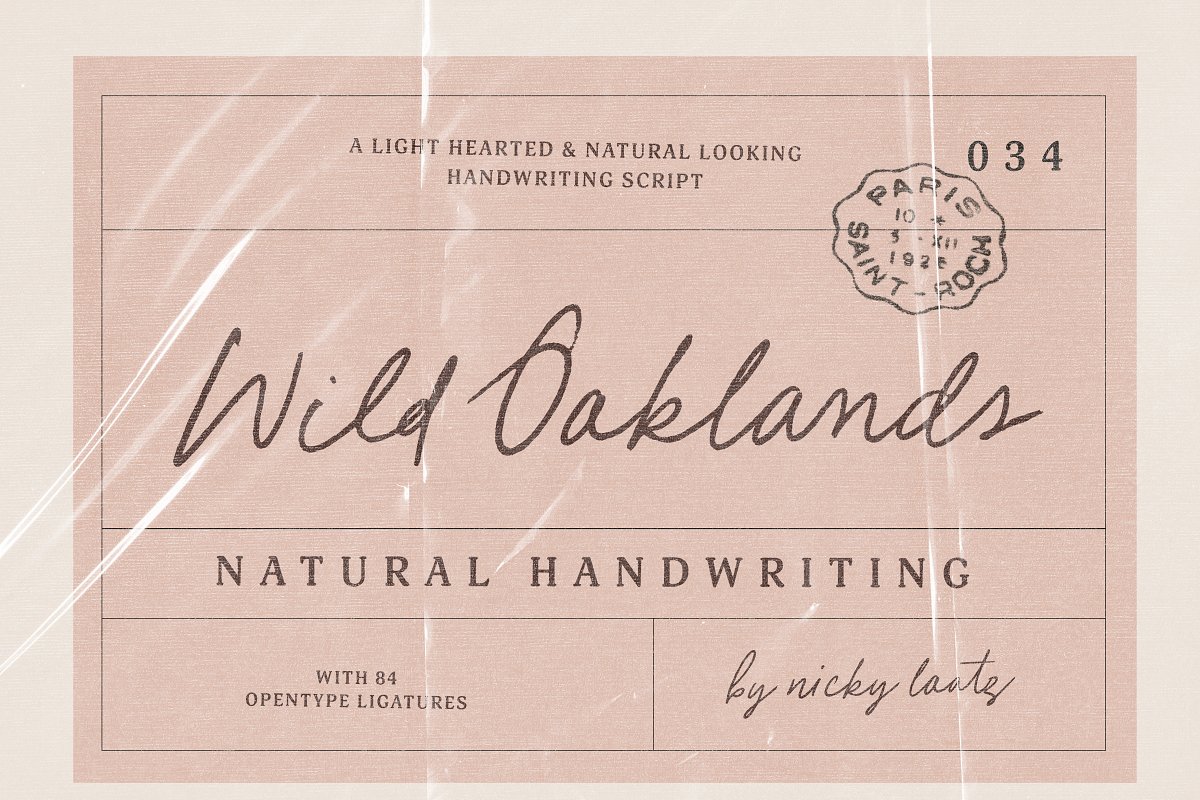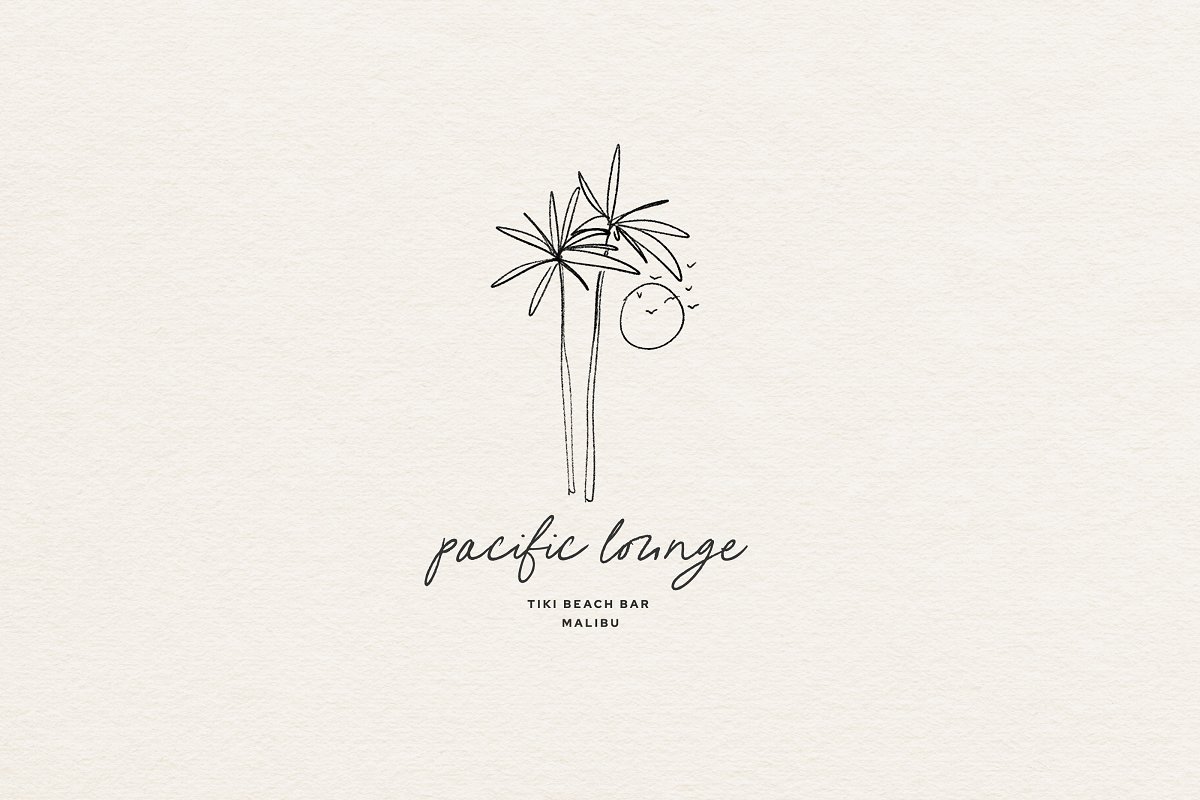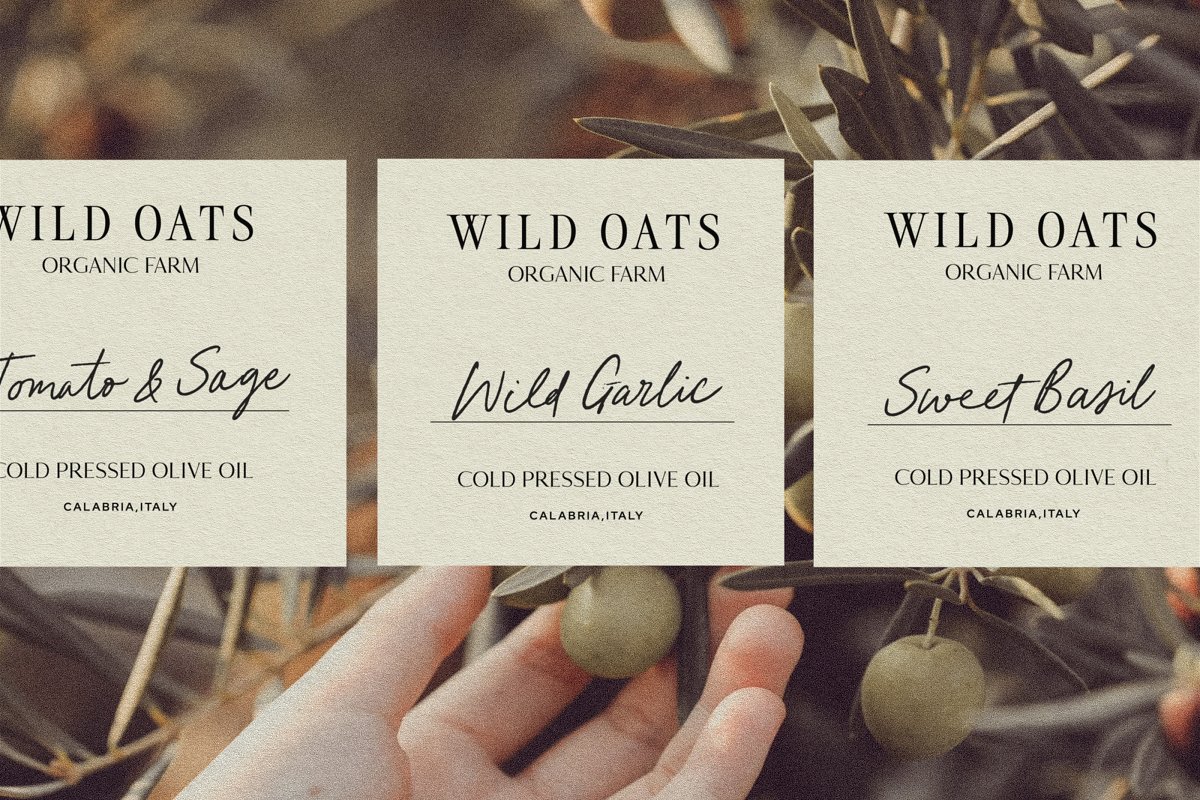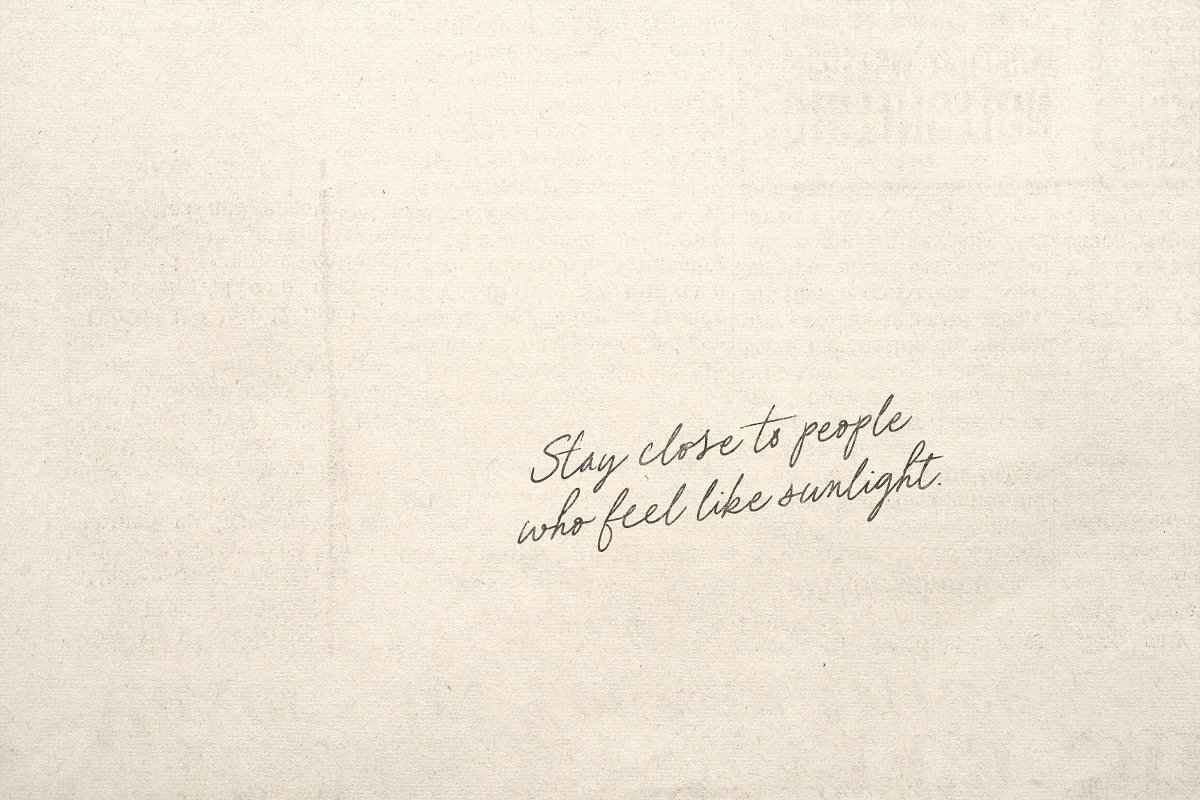
About the Wild Oaklands Handwriting Script
Say hello to ‘Wild Oaklands’ – An inky, imperfect script designed to look as carefree and natural as real handwritten notes, It has 84 Opentype ligatures which make it look even more like natural handwriting and less like a font – make sure you have your ligatures set to on to see the magic as you type, Available in two versions, regular and oblique to fit your project’s style
Great for handwritten quotes, notes, labels, branding or any project that needs an authentic handwritten touch,